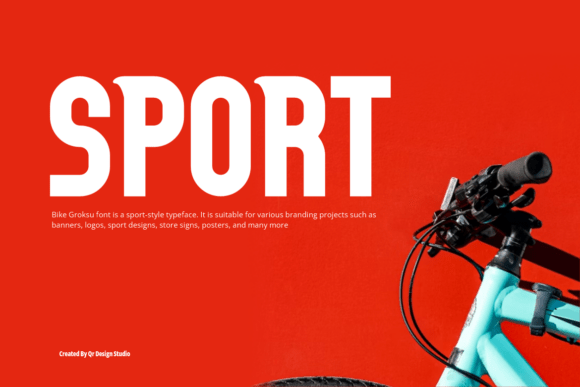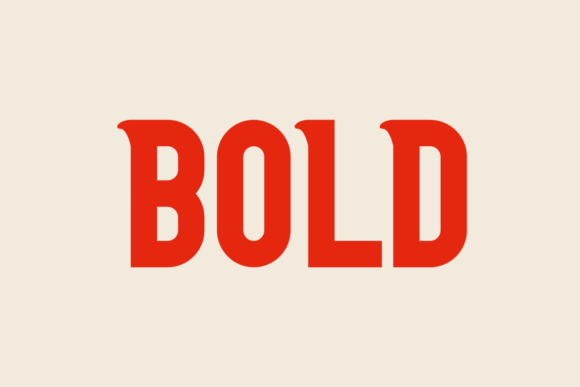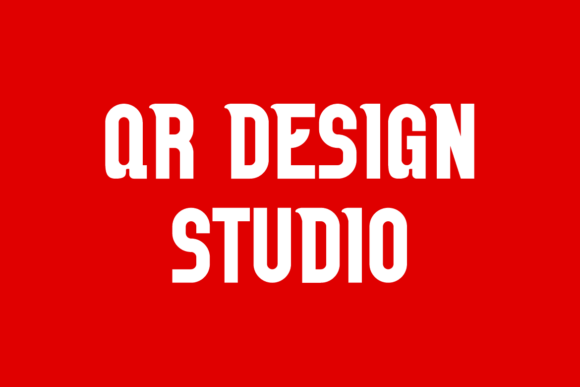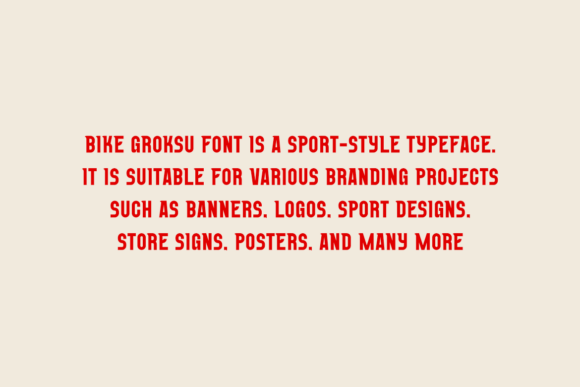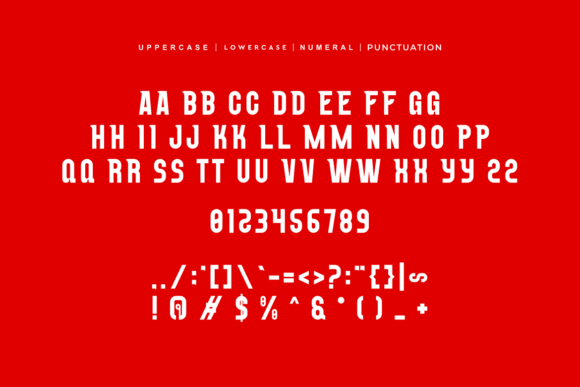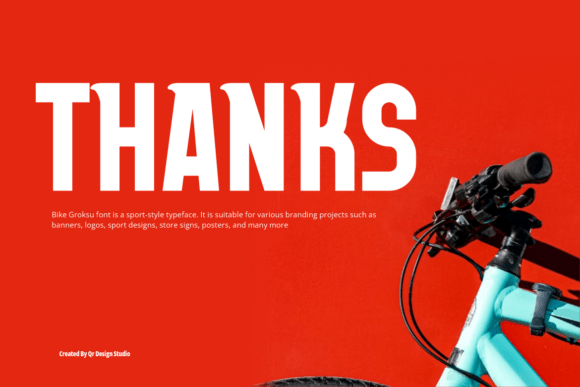
Bike Groksu Font: Elevate Your Designs with a Cool Display Font
Bike Groksu is a cool display font that can add a unique touch to your creative projects. This font is perfect for designers and crafters looking to make a statement with their work. In this article, we’ll explore the features and benefits of Bike Groksu, and show you how to incorporate it into your designs.
What is Bike Groksu Font?
Bike Groksu is a display font designed to make a bold statement. Its unique and quirky style makes it perfect for headlines, titles, and other creative projects. The font is carefully crafted to provide a distinctive look that sets it apart from other fonts.
Key Features of Bike Groksu Font
• Unique Style: Bike Groksu has a one-of-a-kind style that adds a touch of personality to your designs.
• Bold and Quirky: The font is designed to make a statement, making it perfect for headlines and titles.
• High-Quality Design: Bike Groksu is carefully crafted to provide a clean and crisp look.
• Easy to Read: Despite its bold style, Bike Groksu is easy to read, making it perfect for a wide range of applications.
Benefits of Using Bike Groksu Font
Using Bike Groksu font can bring several benefits to your designs. Here are a few:
• Adds Personality: Bike Groksu adds a touch of personality to your designs, making them stand out from the crowd.
• Increases Engagement: The font’s bold and quirky style can grab the attention of your audience, increasing engagement and interest.
• Versatile: Bike Groksu can be used in a wide range of applications, from posters and flyers to digital graphics and branding.
• Easy to Pair: The font pairs well with other fonts, making it easy to create a cohesive look.
How to Use Bike Groksu Font
Using Bike Groksu font is easy. Here are a few tips to get you started:
• Headlines and Titles: Use Bike Groksu for headlines and titles to add a bold and quirky touch.
• Posters and Flyers: Add Bike Groksu to your posters and flyers to make them stand out.
• Digital Graphics: Use Bike Groksu in your digital graphics, such as social media posts and blog headers.
• Branding: Incorporate Bike Groksu into your branding, such as logos and taglines.
Tips for Pairing Bike Groksu Font
Pairing Bike Groksu with other fonts can create a unique and cohesive look. Here are a few tips:
• Contrasting Fonts: Pair Bike Groksu with a contrasting font, such as a serif or script font, to create visual interest.
• Similar Fonts: Pair Bike Groksu with a similar font, such as another bold and quirky font, to create a cohesive look.
• Experiment with Font Sizes: Experiment with different font sizes to create a visually appealing combination.
Bike Groksu is a cool display font that can add a unique touch to your creative projects. Its bold and quirky style makes it perfect for headlines, titles, and other creative applications. With its high-quality design and ease of use, Bike Groksu is a great addition to any designer’s toolkit. So why not give it a try and see the results for yourself?
Bike Groksu is a cool display font. Add it to your creative ideas and enjoy the results!